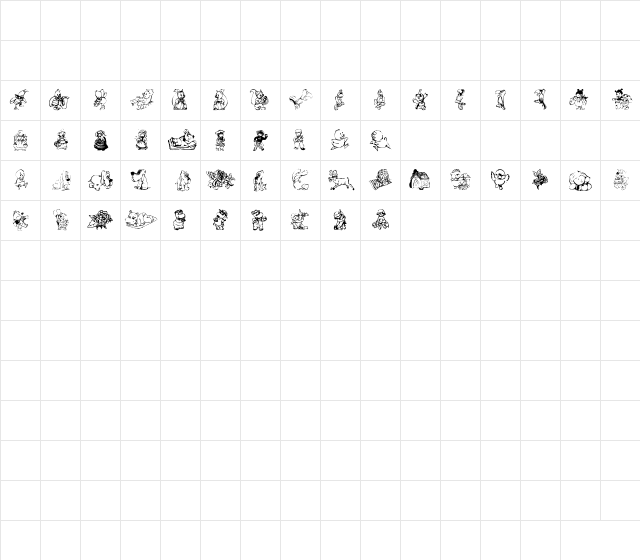
LSLittleBits13 Regular Free Font
LSLittleBits13 Regular
Foundry: High-Logic
Designer: High-Logic - Erwin Denissen
Design Context for LSLittleBits13
LSLittleBits13 is a composed and adaptable typeface that performs quietly and consistently across a wide range of design contexts.